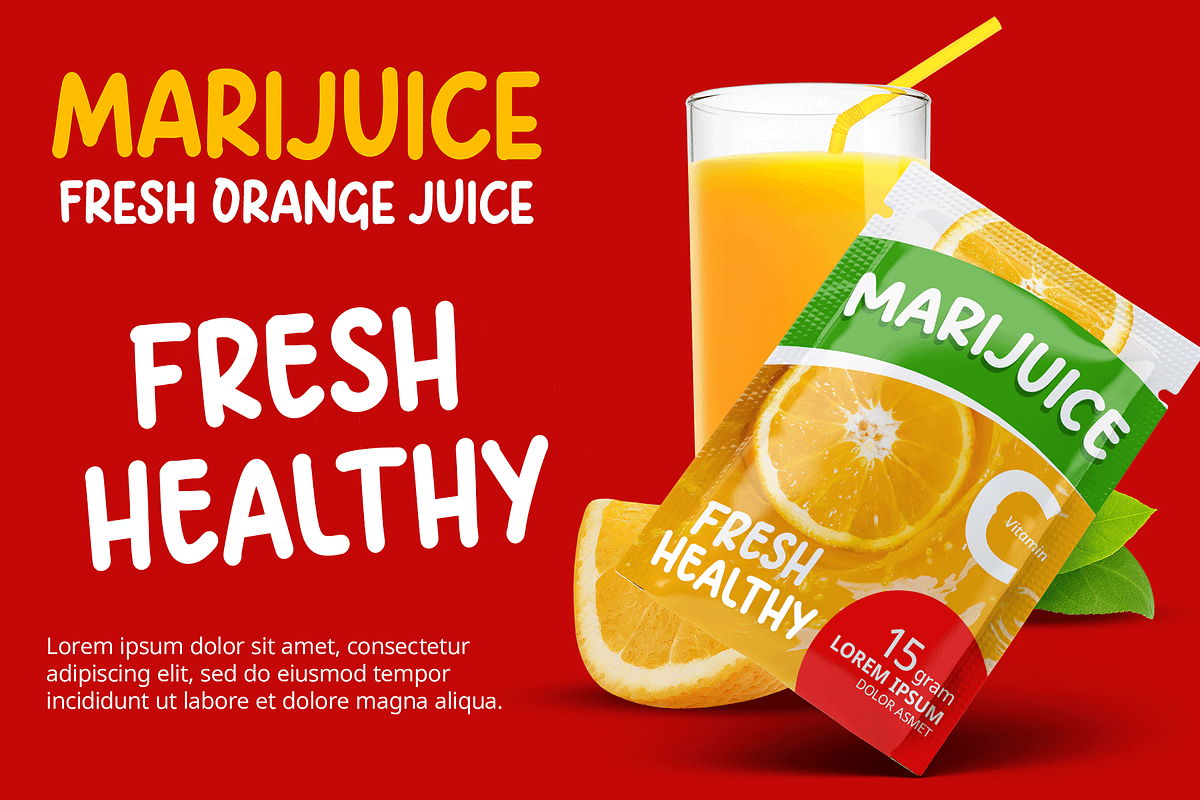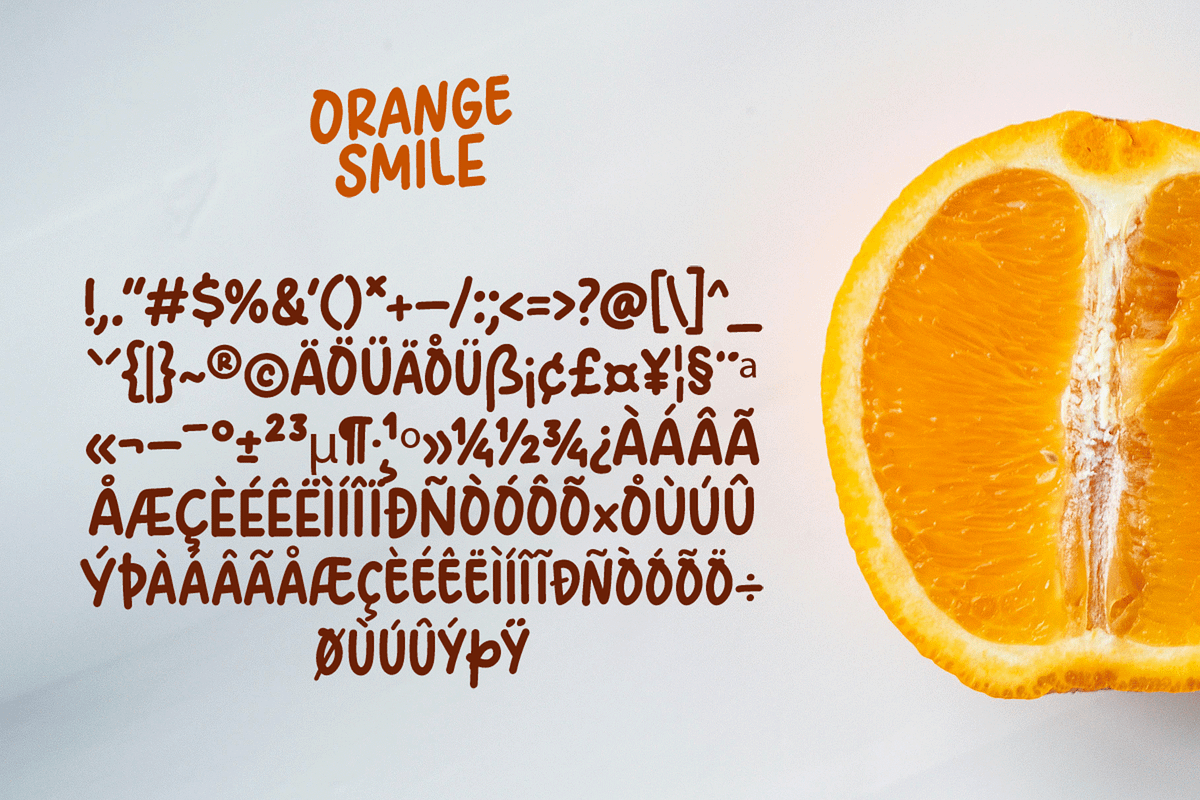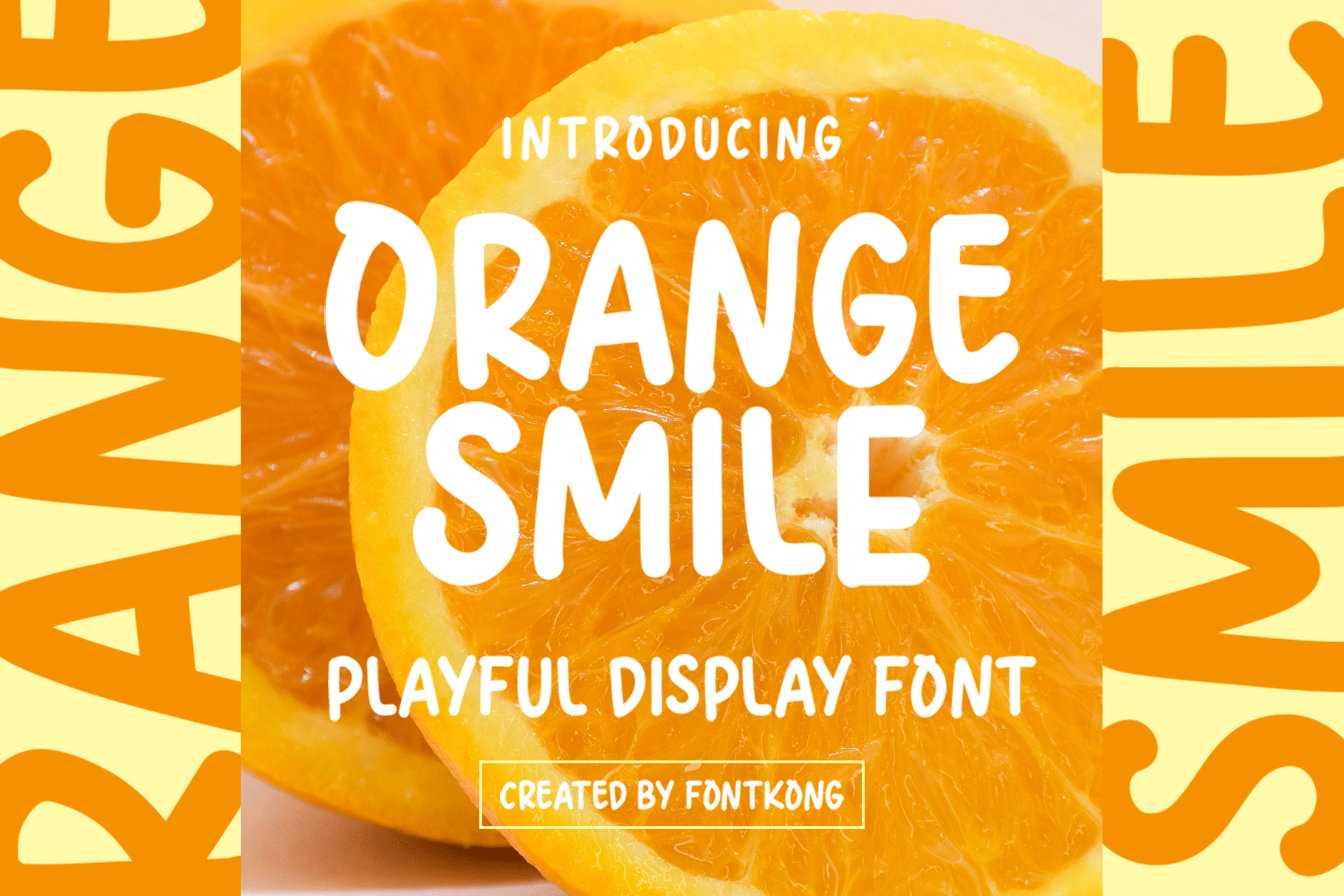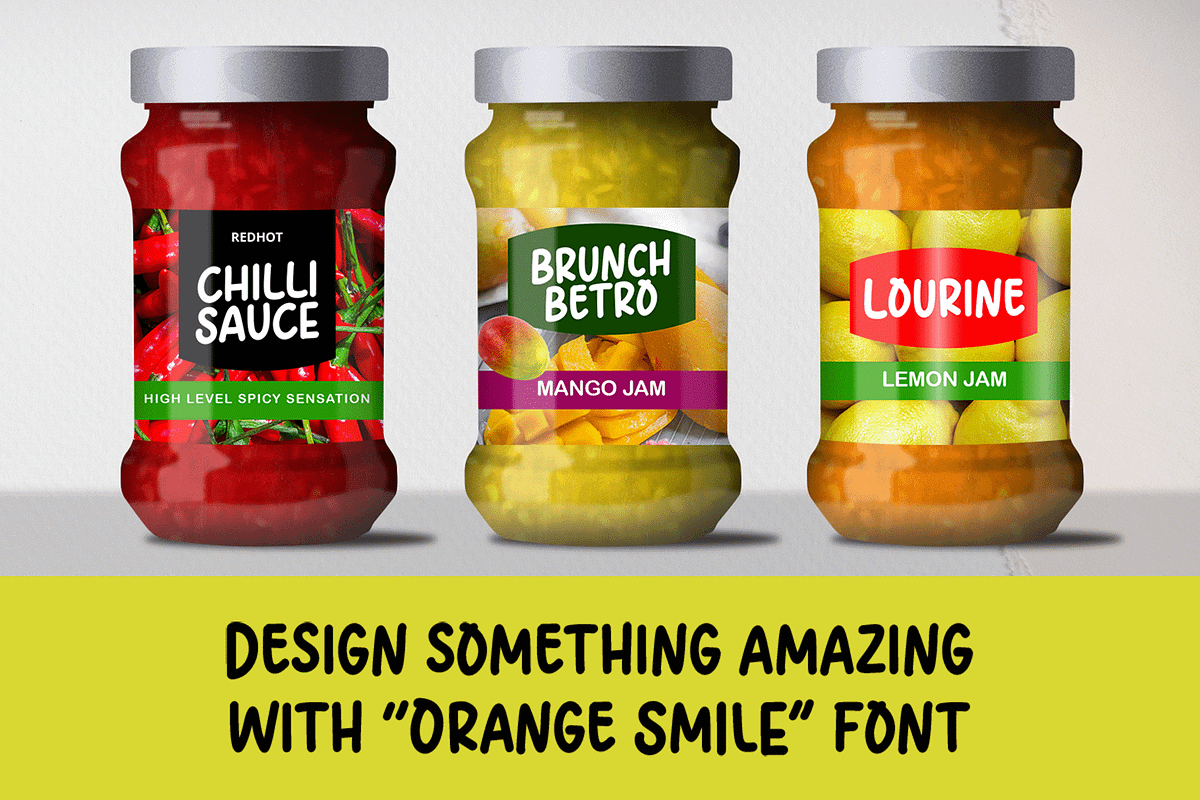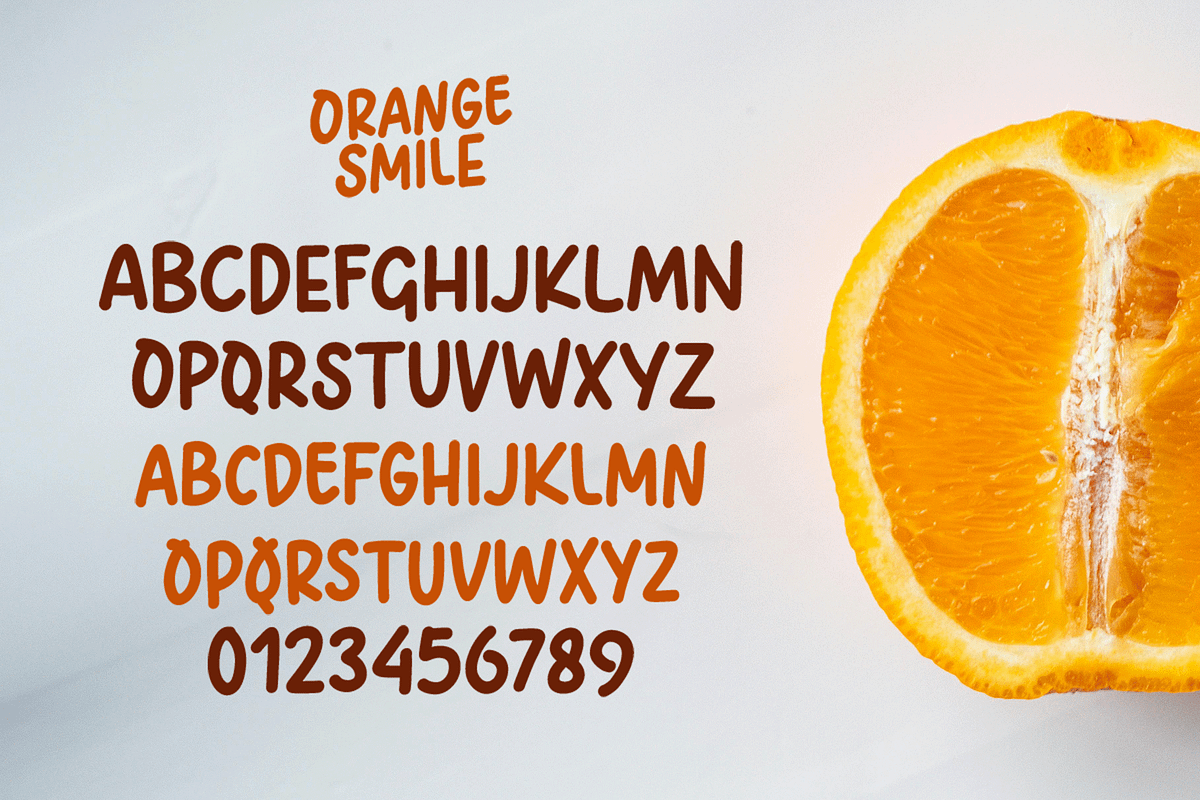
Orange Smile – Playful Display Font
Say hello to Orange Smile, a cheerful and lively display font designed to bring joy and energy to your creative projects. With its bold curves and playful character, Orange Smile is perfect for creating fun and eye-catching designs.
Ideal for children’s books, posters, product packaging, greeting cards, social media graphics, and playful branding, this font captures a sense of happiness and creativity. Its easy-to-read letterforms and whimsical vibe make it a delightful choice for any project that needs a burst of positivity.
Add a splash of fun to your designs with the vibrant spirit of Orange Smile!